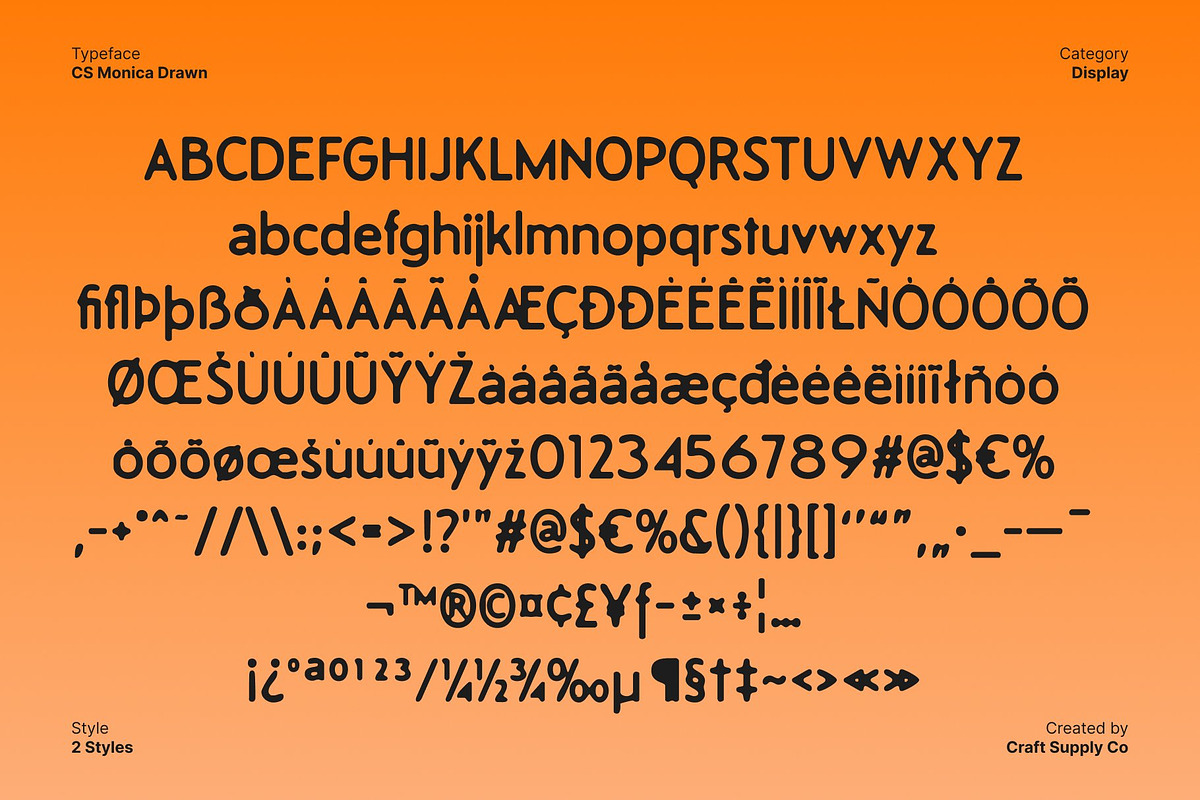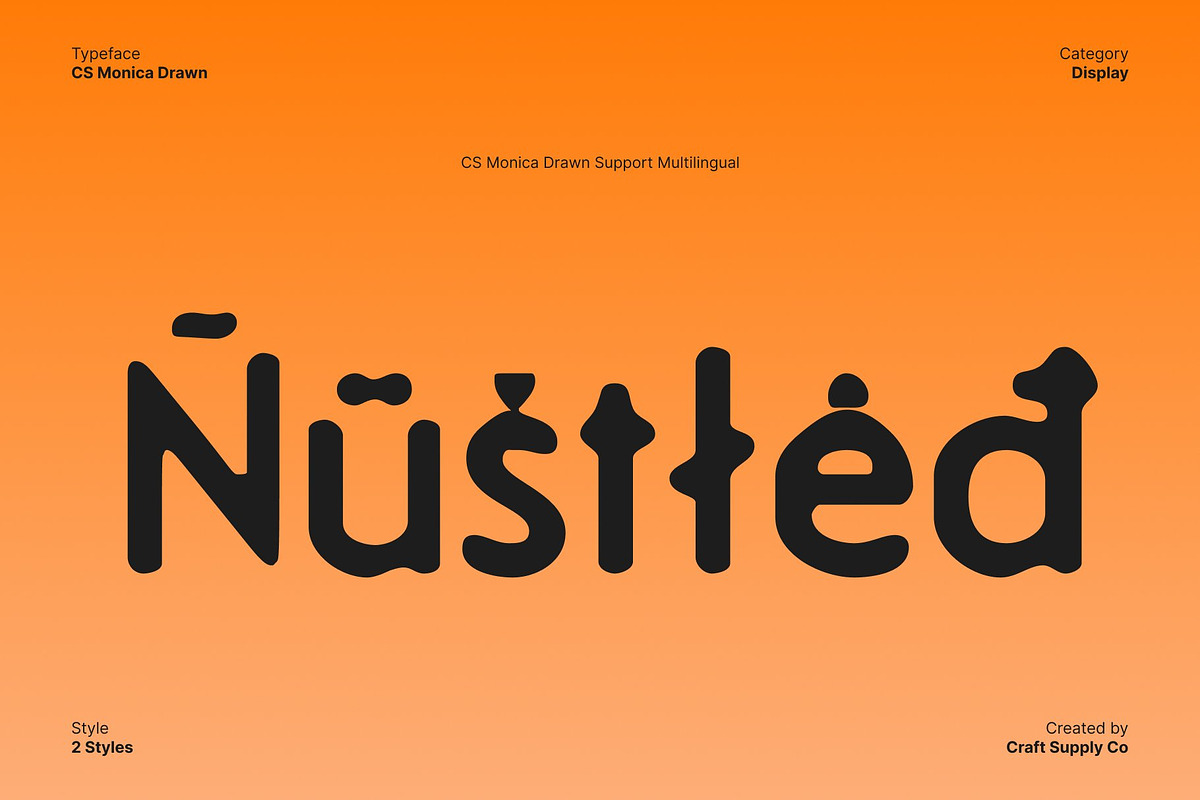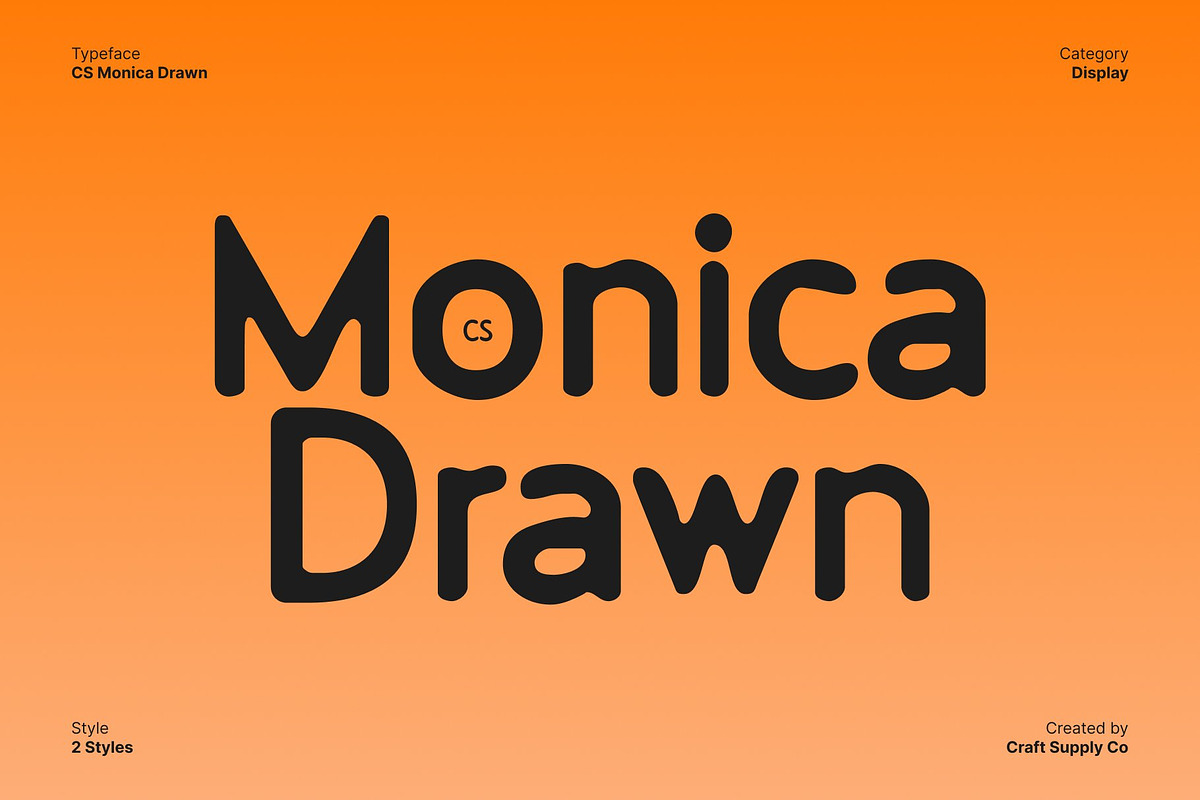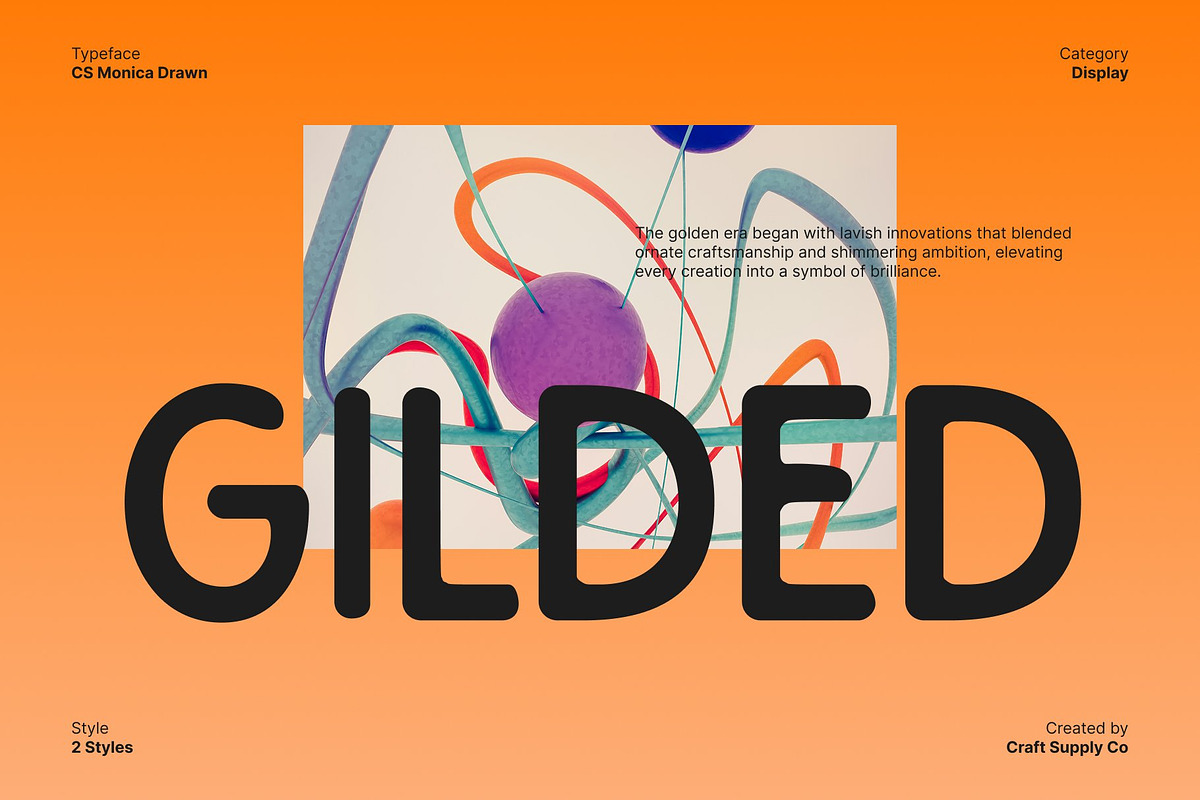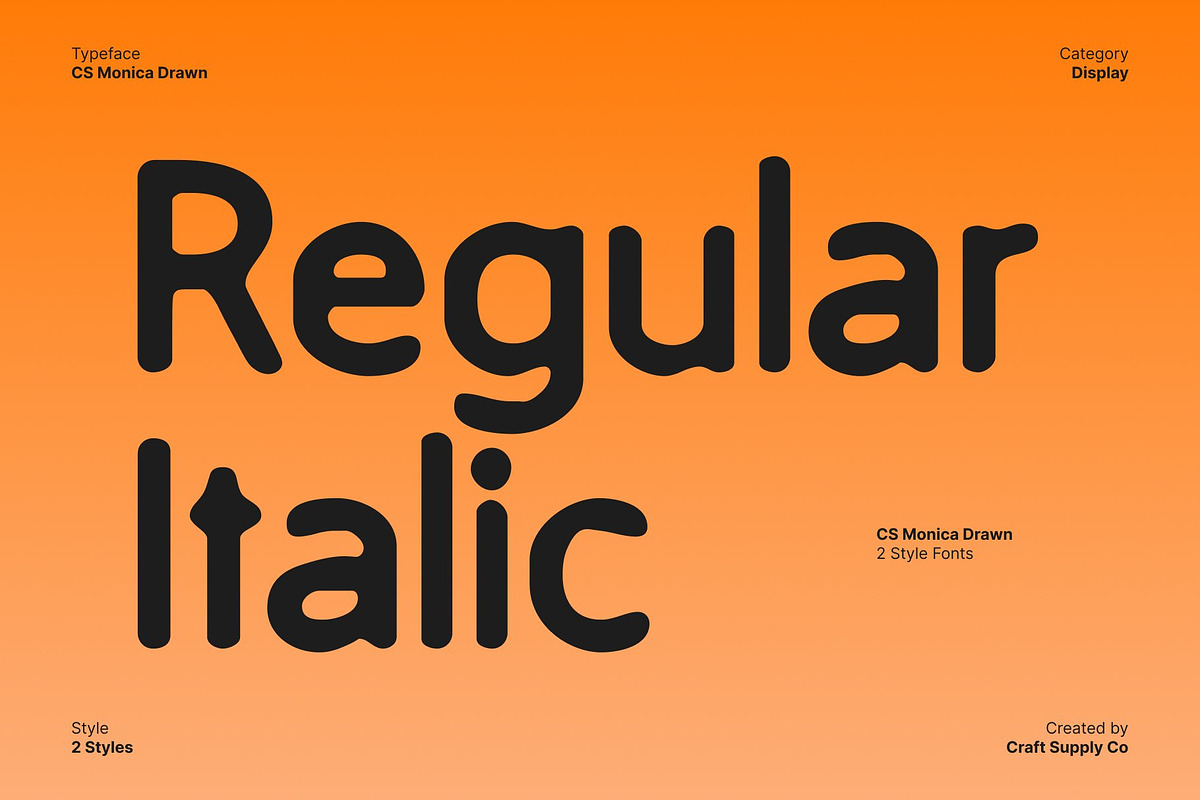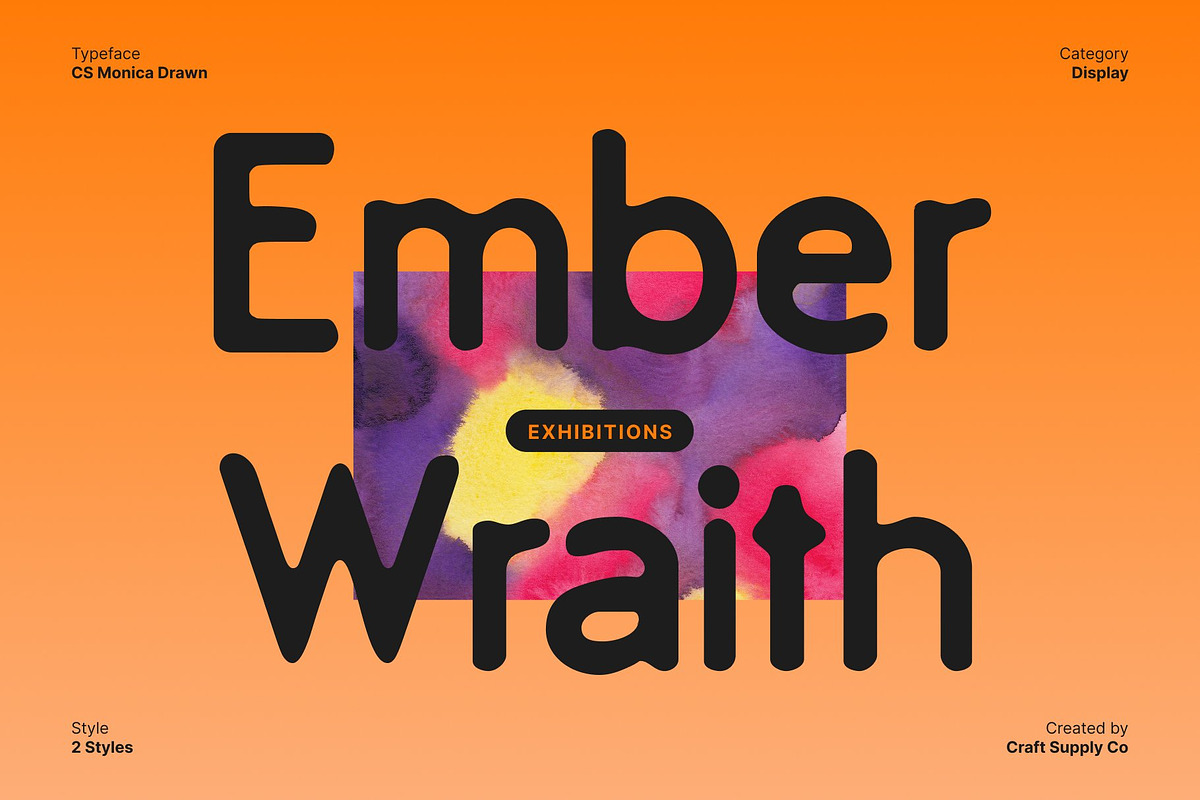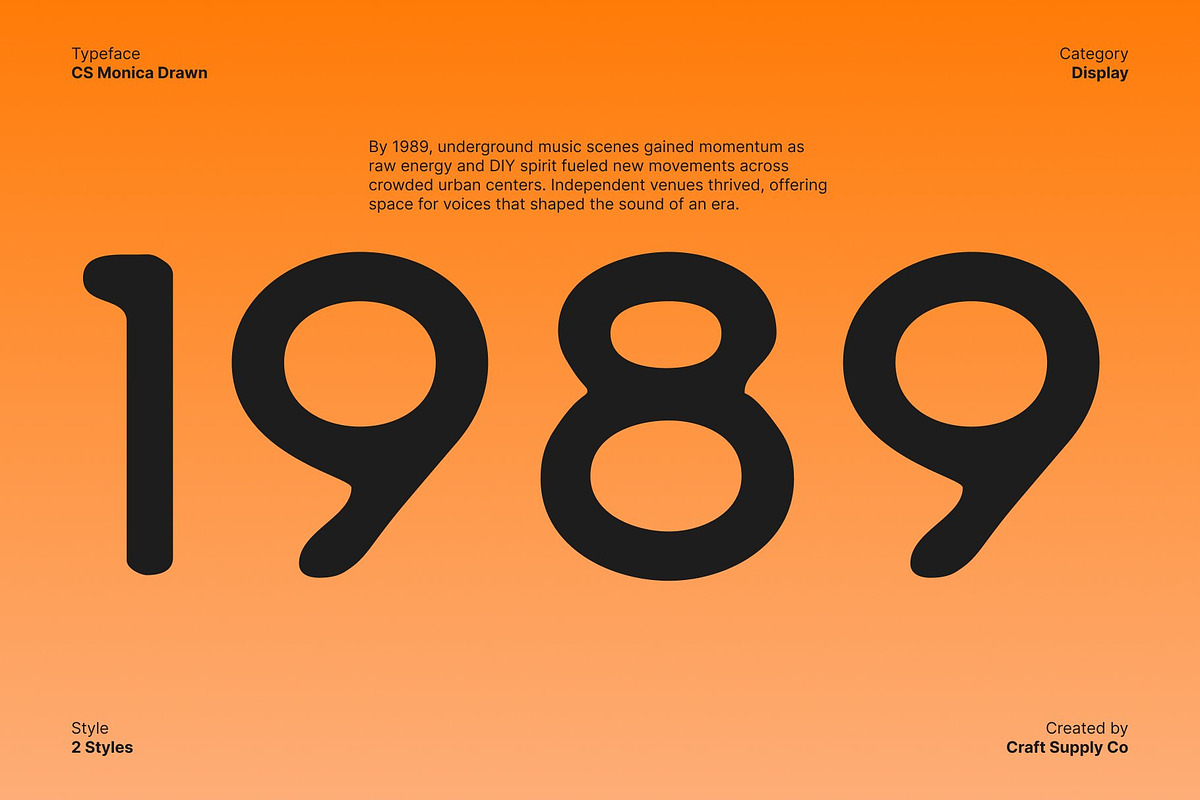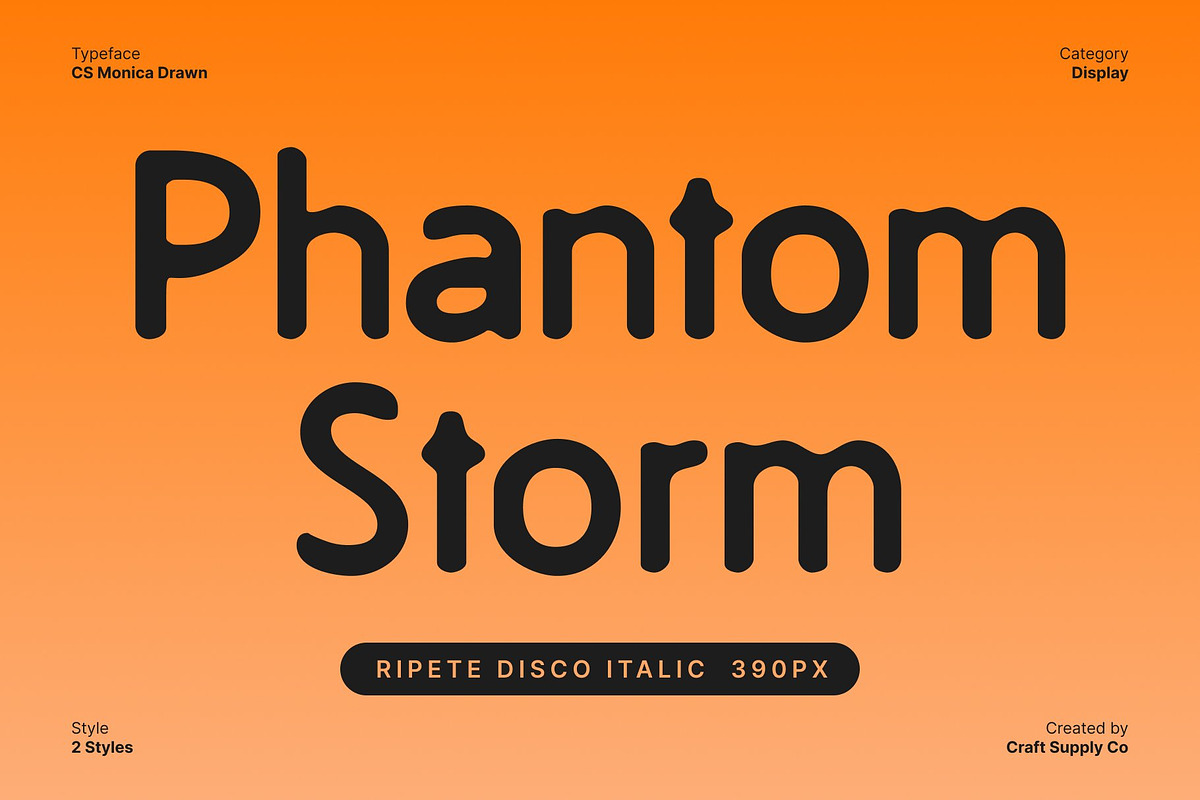
CS Monica Drawn
CS Monica Drawn – Modern Sans Serif with Handcrafted Precision
Clean Structure with Professional Presence This is a modern sans serif font built with confident precision and a sharp contemporary edge. Its clean, well-balanced letterforms project clarity, professionalism, and reliability, making it an excellent choice for designers who need a font that communicates modern values with confidence. The structured geometry ensures excellent readability while maintaining a sleek and refined visual tone.
Contemporary Design for Modern Communication Designed for today’s visual language, embraces minimalist aesthetics without feeling cold or sterile. Its proportions are carefully refined to feel current and adaptable, allowing it to perform beautifully across digital interfaces, editorial layouts, and branding systems. This font feels at home in modern environments where clarity and style must coexist.
Hand-Drawn Effect for Softened Elegance What sets this font apart is its subtle hand-drawn effect. This delicate texture softens the clean sans serif lines, adding warmth, personality, and a human touch. The drawn details prevent the font from feeling overly mechanical, creating a balance between precision and approachability that enhances visual engagement.
Versatile for Editorial, Digital, and Branding Use This font is highly versatile, making it ideal for editorials, websites, app interfaces, corporate branding, lifestyle products, and modern promotional materials. It supports designs that aim to feel professional yet expressive, clean yet artistic. With its blend of contemporary structure and handcrafted charm, delivers a modern voice that feels polished, natural, and confidently expressive.